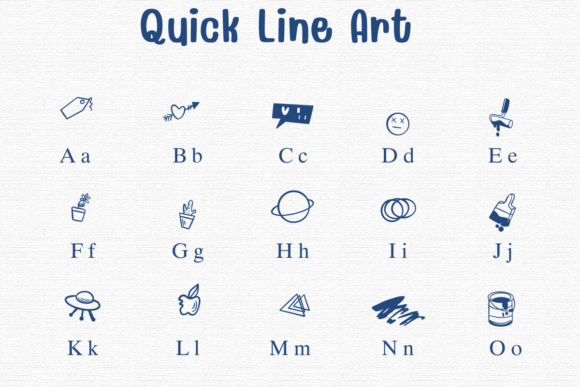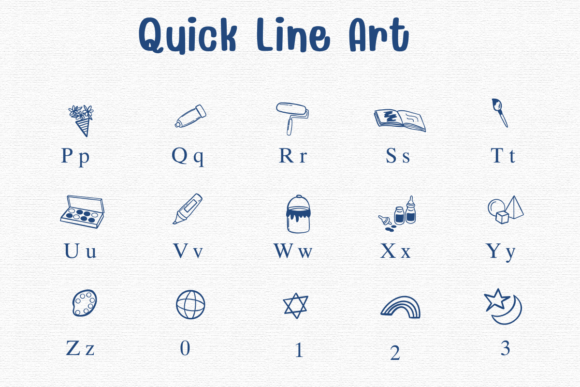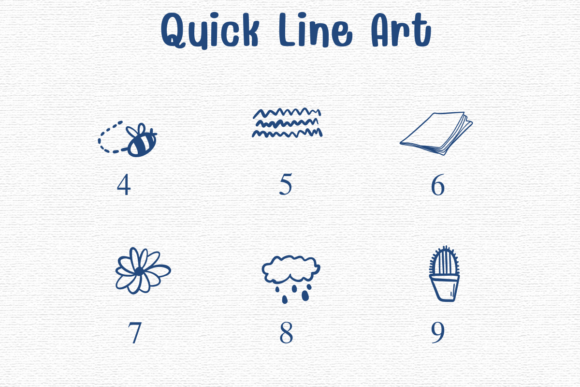
Introduction to Quick Line Art Font
Who hasn’t found themselves doodling in the margins of a notebook or sketching out ideas on a piece of scrap paper? For many creatives, doodling is more than just a hobby – it’s a way to spark inspiration and bring ideas to life. And for designers, having the right design resources can make all the difference in bringing their vision to the page.
Enter the Quick Line Art Font, a playful and eclectic dingbats font that’s perfect for adding a touch of whimsy to any design project. With its quick sketch feel, this font is great for stickers, coloring pages, school worksheets, and DIY creative projects. And the best part? It’s available for free download, making it a valuable addition to any designer’s toolkit.
Whether you’re looking for a high-quality font to add some personality to your designs or a design resource to help you create transparent backgrounds for your creative projects, the Quick Line Art Font is a must-have. In this article, we’ll take a closer look at what makes this font so special and how you can use it to take your designs to the next level.
Key Features of Quick Line Art Font
- High-quality design resource for creative projects, ideal for illustrations, graphics, and typography.
- Unique line art style with a transparent background, allowing for easy customization and composition.
- Quick and easy to use, making it a great resource for designers and artists working on tight deadlines.
- Perfect for creating high-quality graphics, illustrations, and designs for various applications, including print, web, and digital media.
Honest Review: Quick Line Art Font
As a designer, I’m always on the lookout for high-quality design resources to elevate my creative projects. I recently stumbled upon the Quick Line Art Font, and I’m excited to share my honest review.
- ✨ The font is incredibly versatile, with a wide range of styles and variations that can be used for various design applications.
- ✨ The transparent background option is a game-changer, allowing me to easily incorporate the font into my designs without any unwanted distractions.
- ⚠️ The font may not be suitable for large-scale projects, as it can become pixelated when enlarged.
- ⚠️ Some users may find the font’s simplicity to be a drawback, as it may not be as bold or eye-catching as other fonts.
Overall, I’m impressed with the Quick Line Art Font’s potential as a design resource. While it may have some limitations, its versatility, free availability, and transparent background option make it a valuable addition to any designer’s toolkit.
How to Use Quick Line Art Font
The Quick Line Art Font is a versatile and creative design resource that can be used in a variety of projects. With its high-quality lines and transparent background, it’s perfect for adding a touch of elegance to your work.
Tips for Getting the Most Out of Quick Line Art Font
Experiment with different line styles and colors to achieve a unique look.
Use the font’s transparent background to create visually appealing designs.
Combine the Quick Line Art Font with other design elements to create a cohesive look.